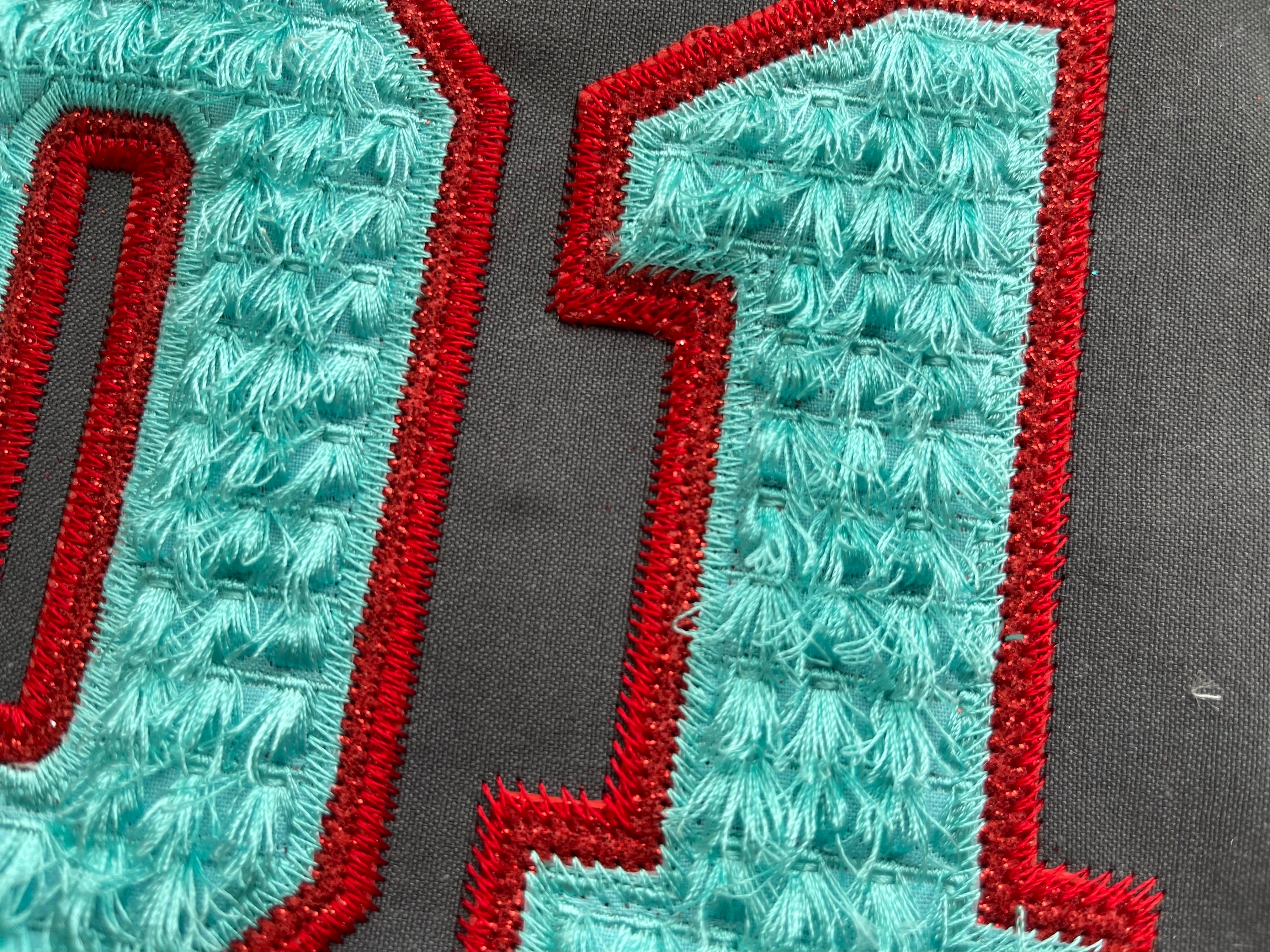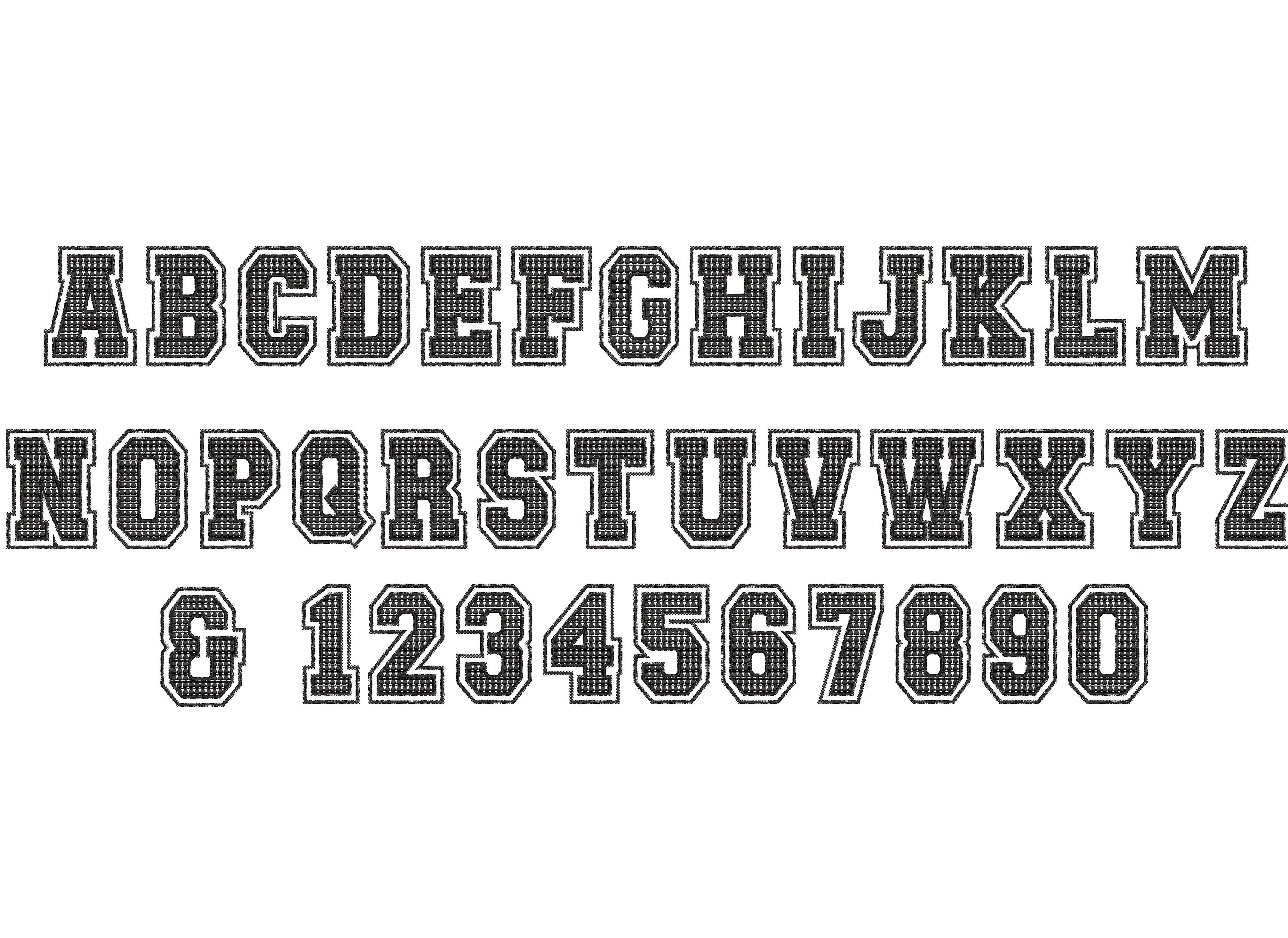
BIG Fringed fluffy Font chenille Glitter Vinyl ZIG-ZAG Double applique layer Athletic Sport School Team Players machine embroidery designs
It is easy. Stitch the design as usual. Large satin stitches will be loose. Once you complete stitching the design, turn over your hoop to see a reverse side, and cut the bobbin thread, along the large satin stitches. Turn the hoop back over and fluff up the "fringe" around.
Two applique layers (double outline sport font)
After stitching out 4 letters, the outside cover stitches on the inside and outside started unraveling because there was no tie off at the end. The frilly worked just fine, but the outside cover stitches didn't. Each letter, I was able to pull out an inch or so of the stitching. Also, some letters were out of order and the D was missing the inside tackdown and I had to rerun the inside part of the outside tackdown to cut the inside of the D on the second fabric. She contacted me to fix the issue so I'm changing my star rating. All the other designs I recently used stitched awesome. I think this file just had a mistake and the tie off was left out.